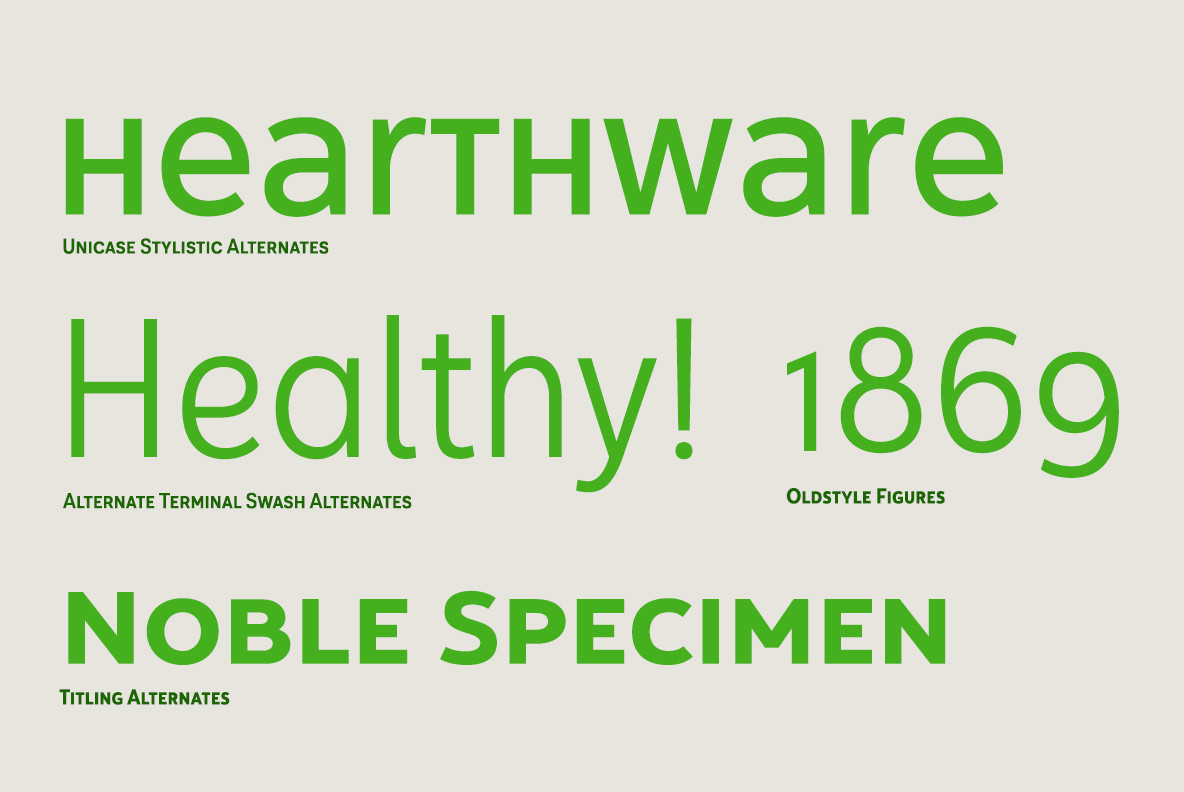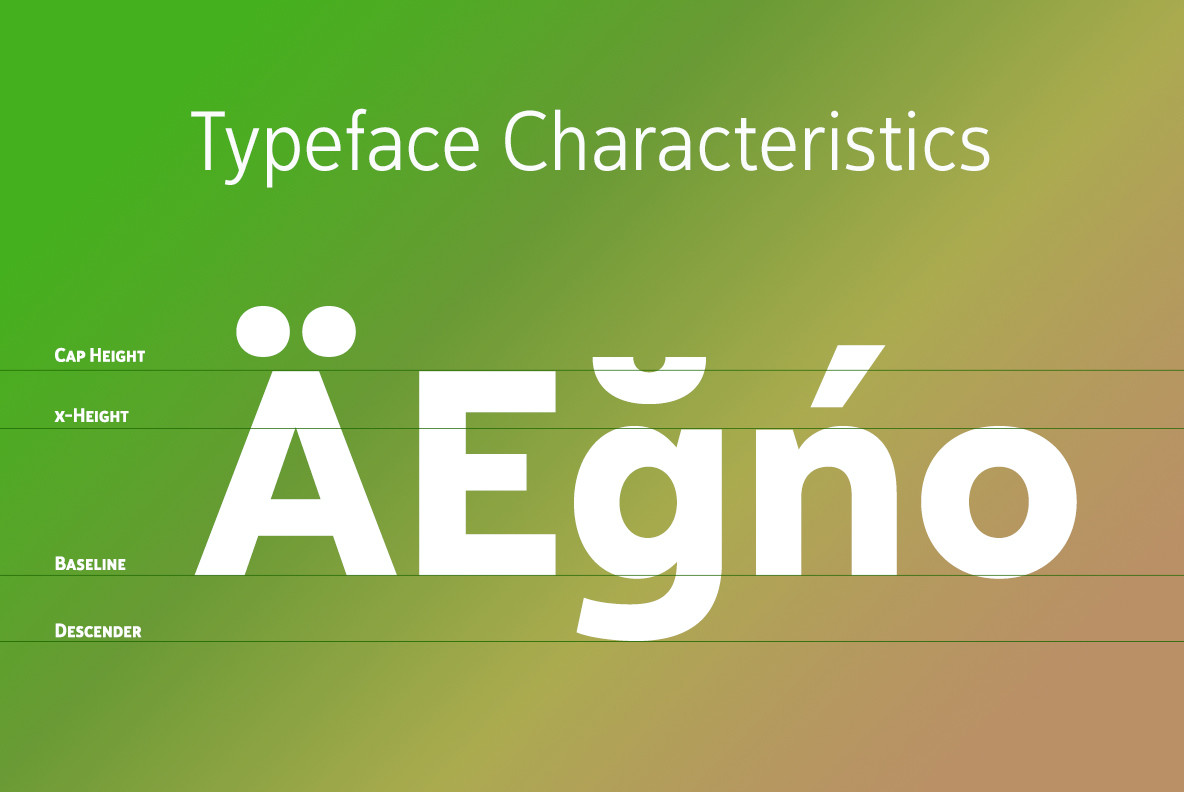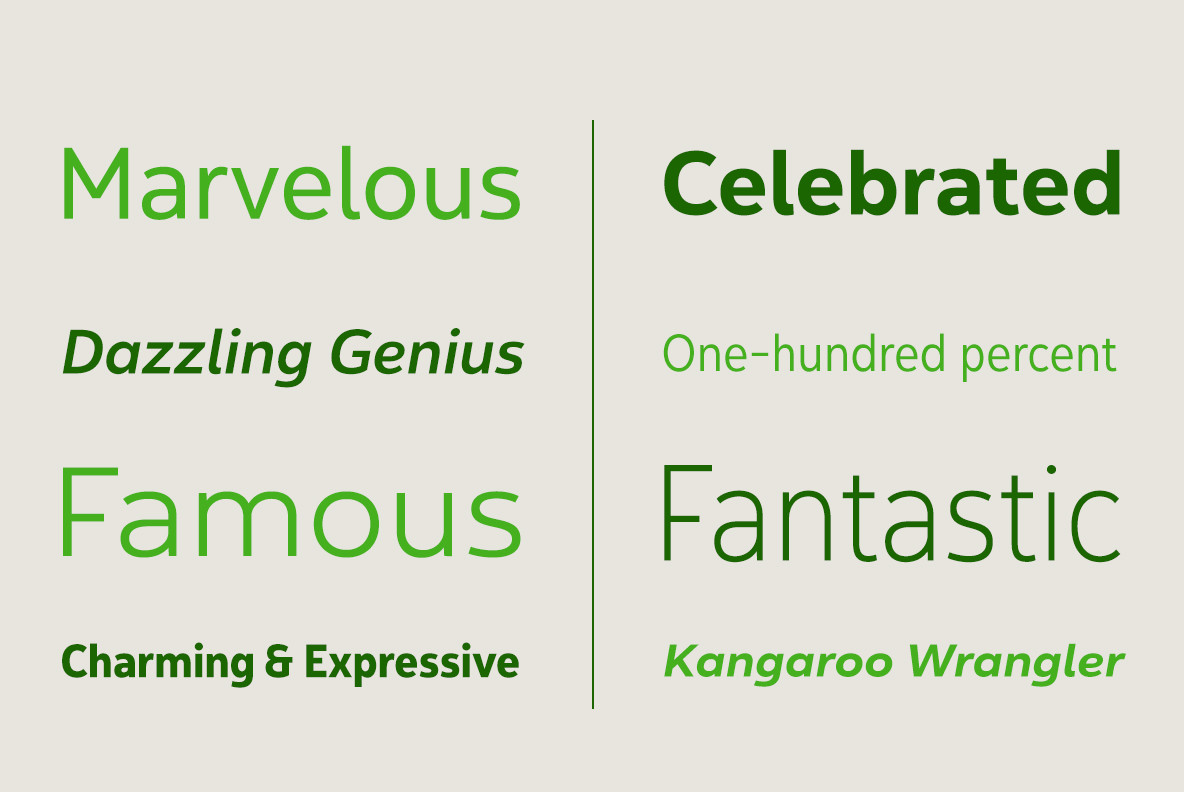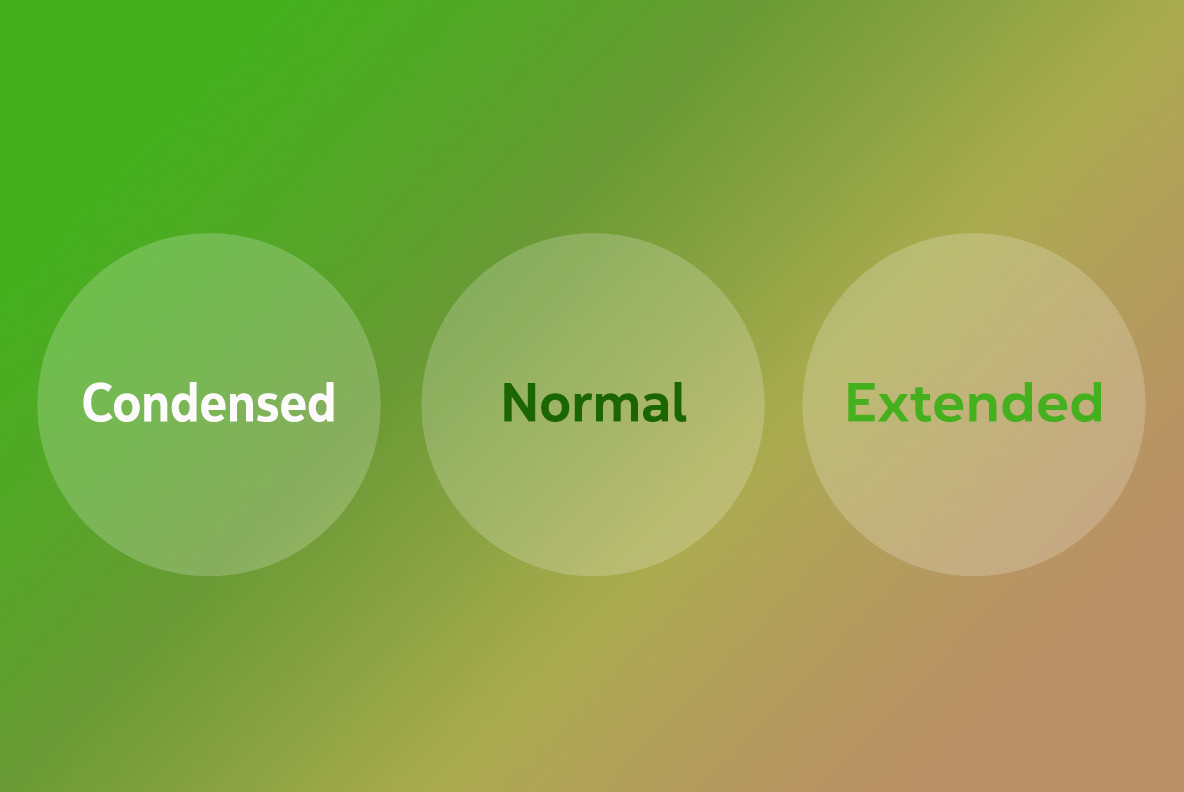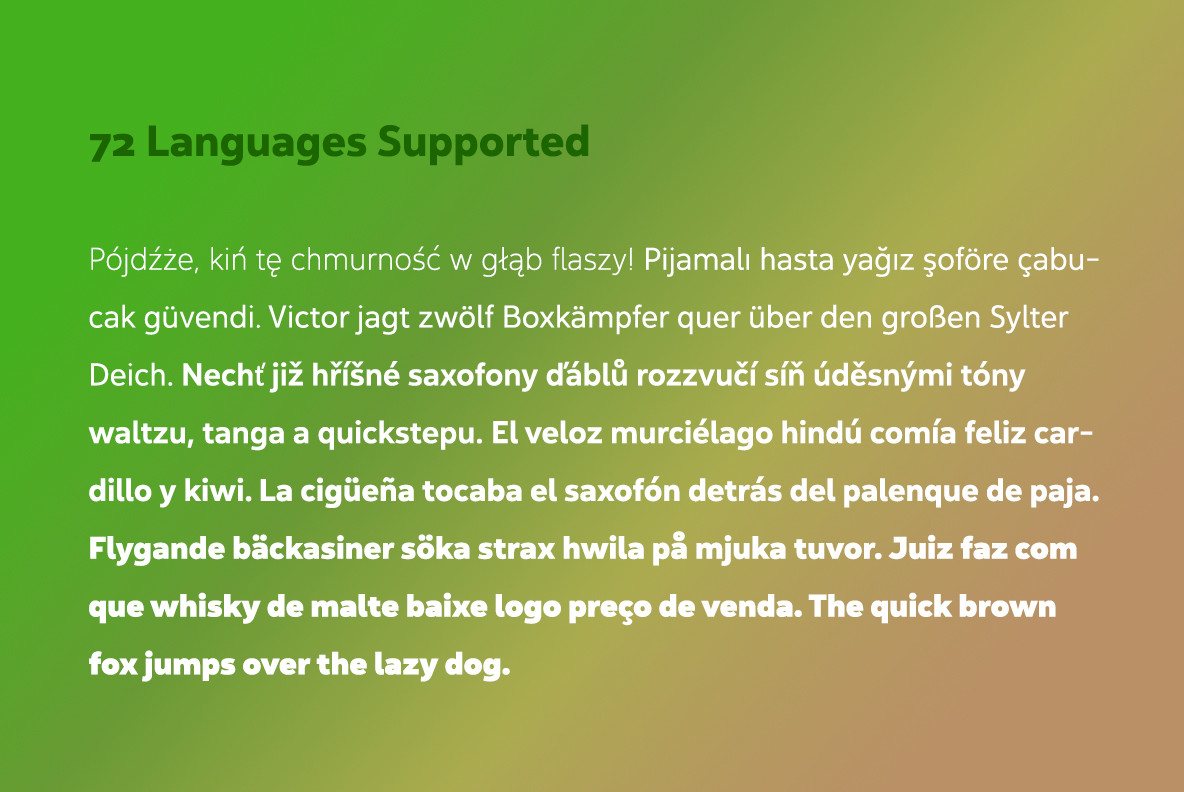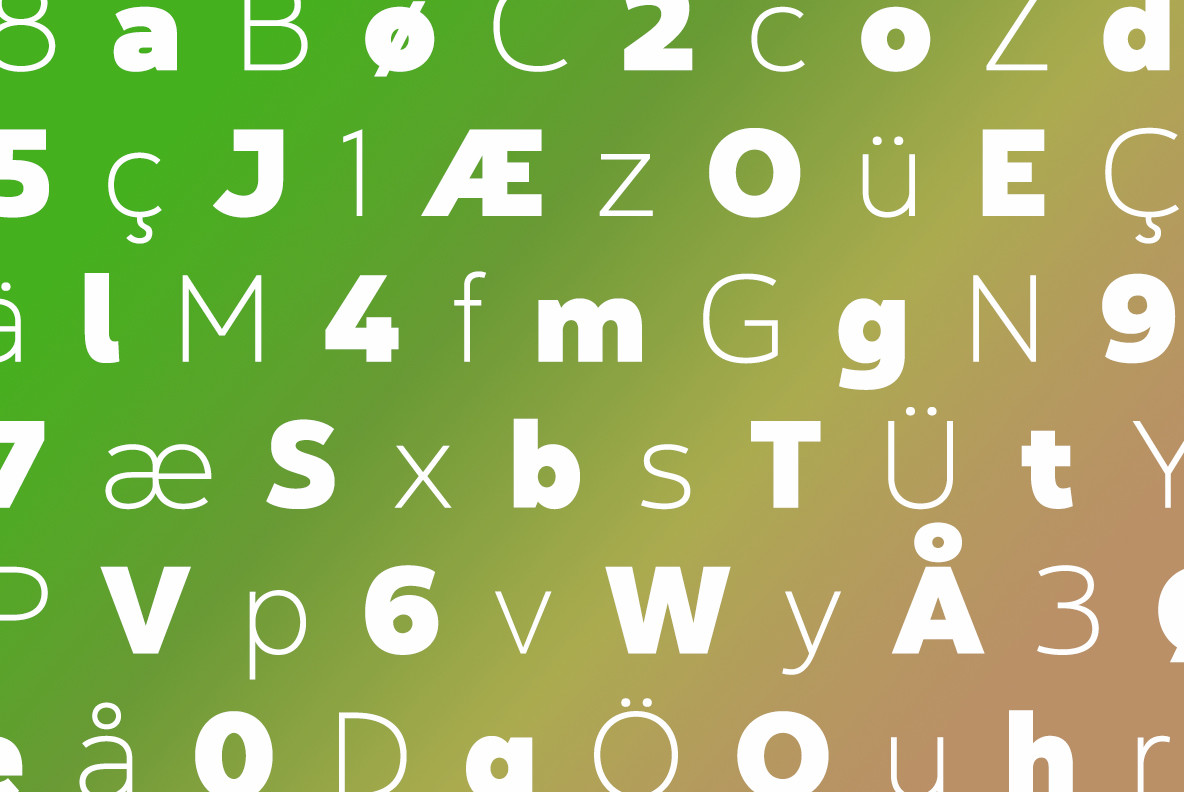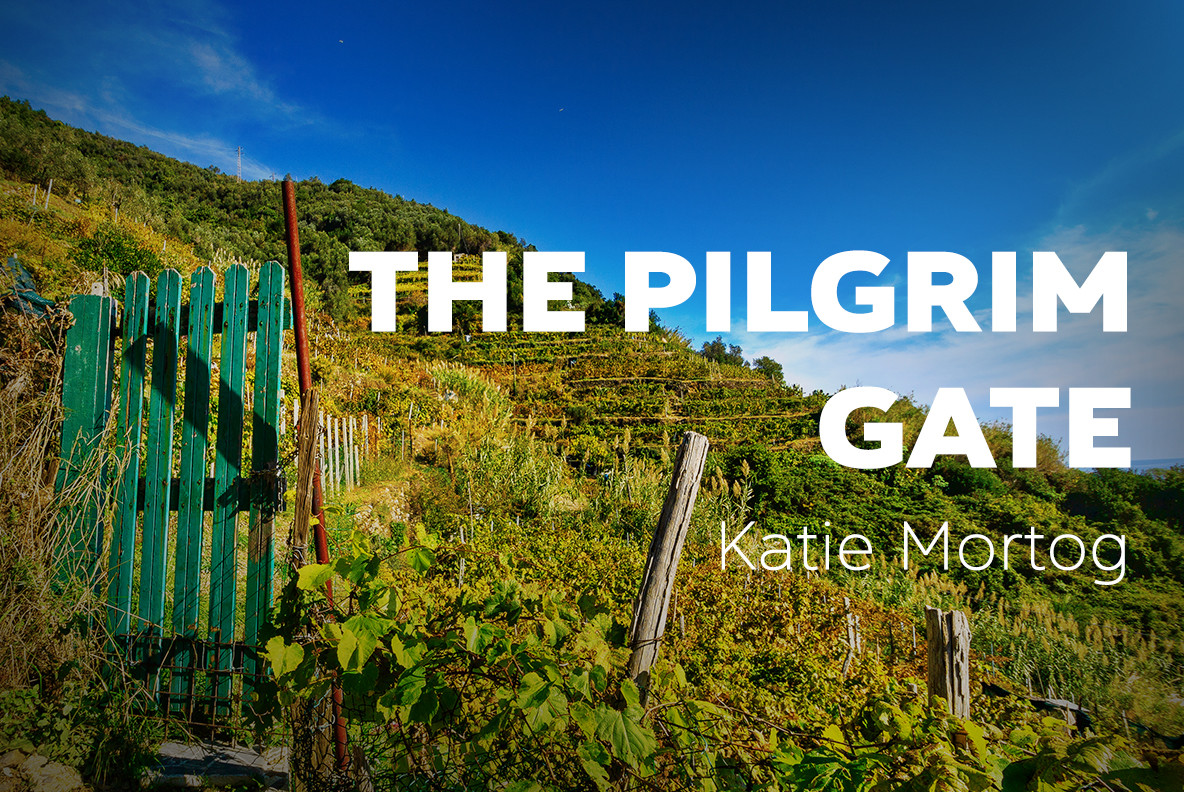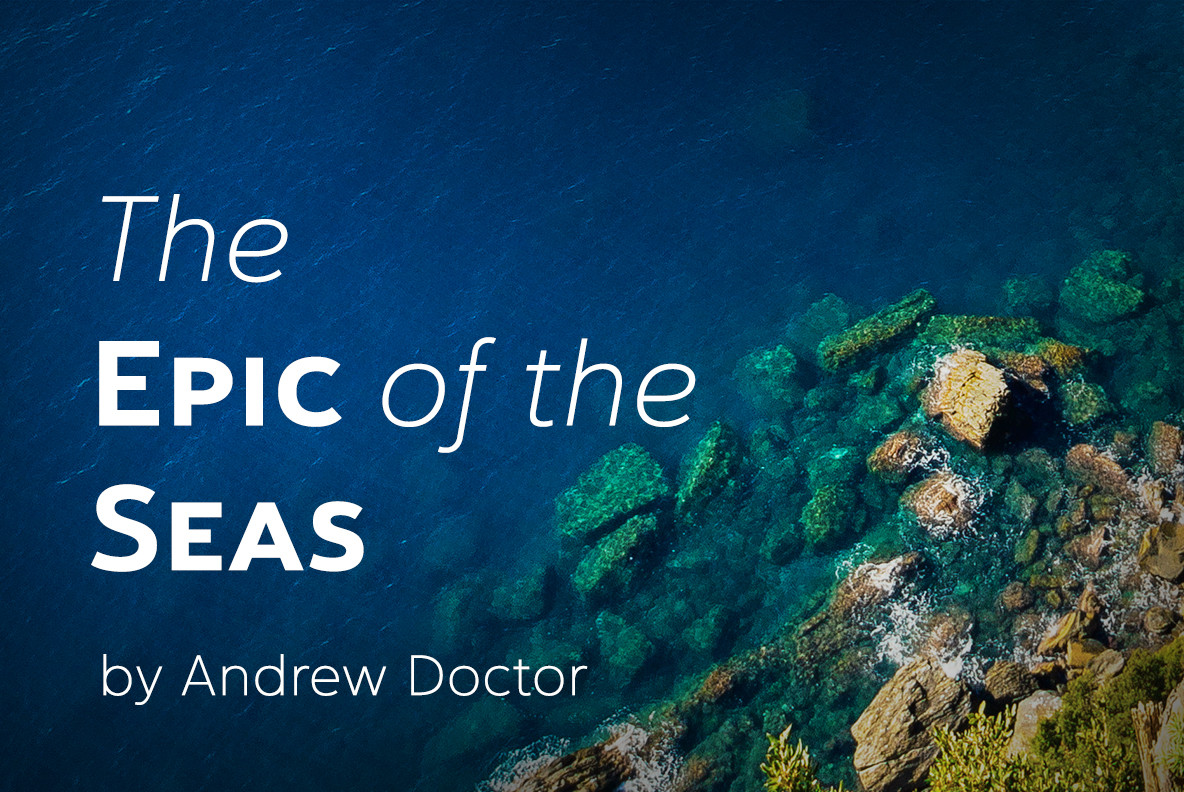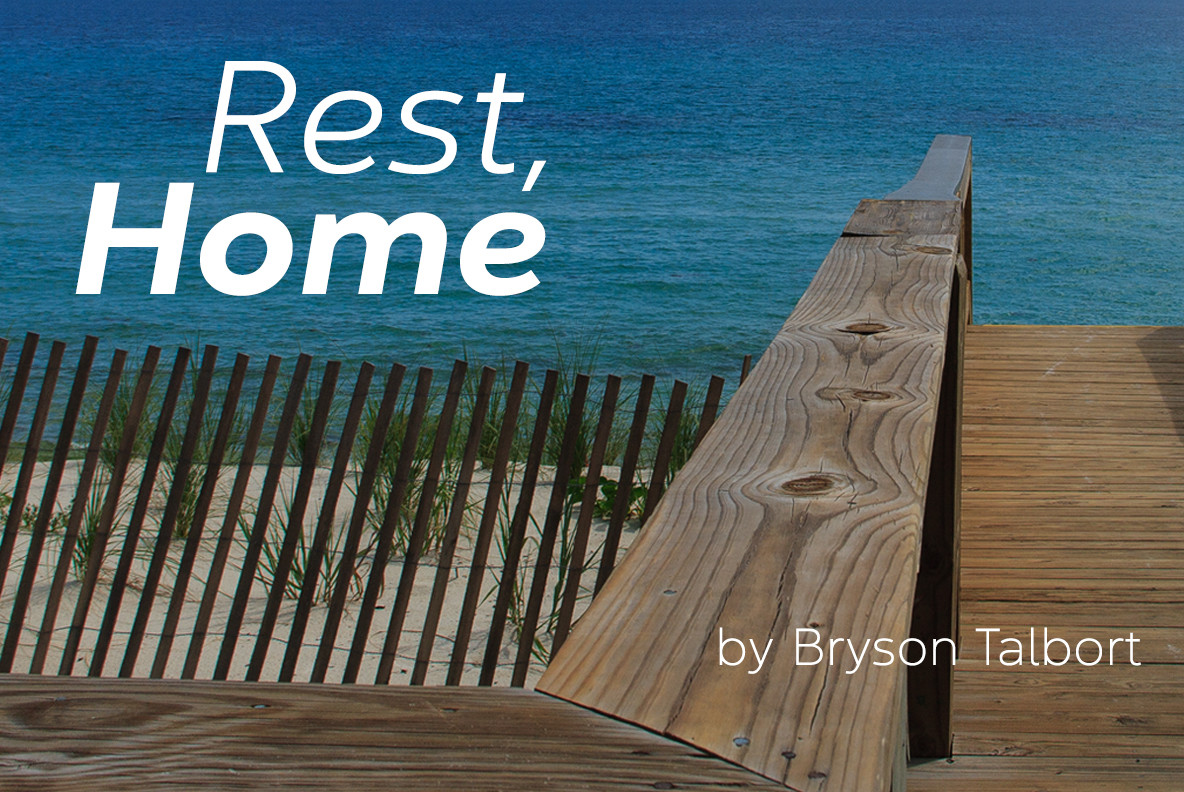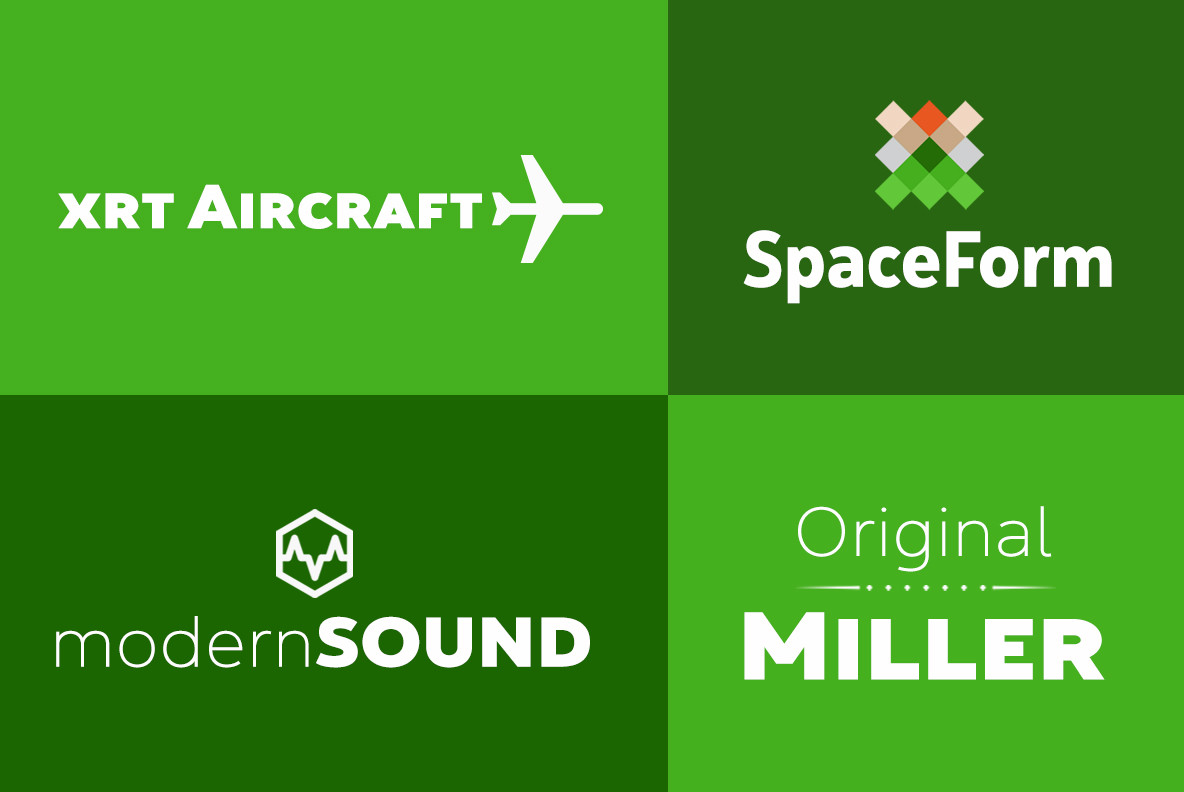
Yorkten Font
As with all insigne fonts, fonts that are well received by the market are expanded into future variants such as rounded or slab serif types. Yorkten's later expansions will increase the versatility and functionality of the family. There’s no need to wait for these future releases, though. This new face already complements a number of other insigne faces, such as Grayfel, Look, or the Cabrito Superfamily.